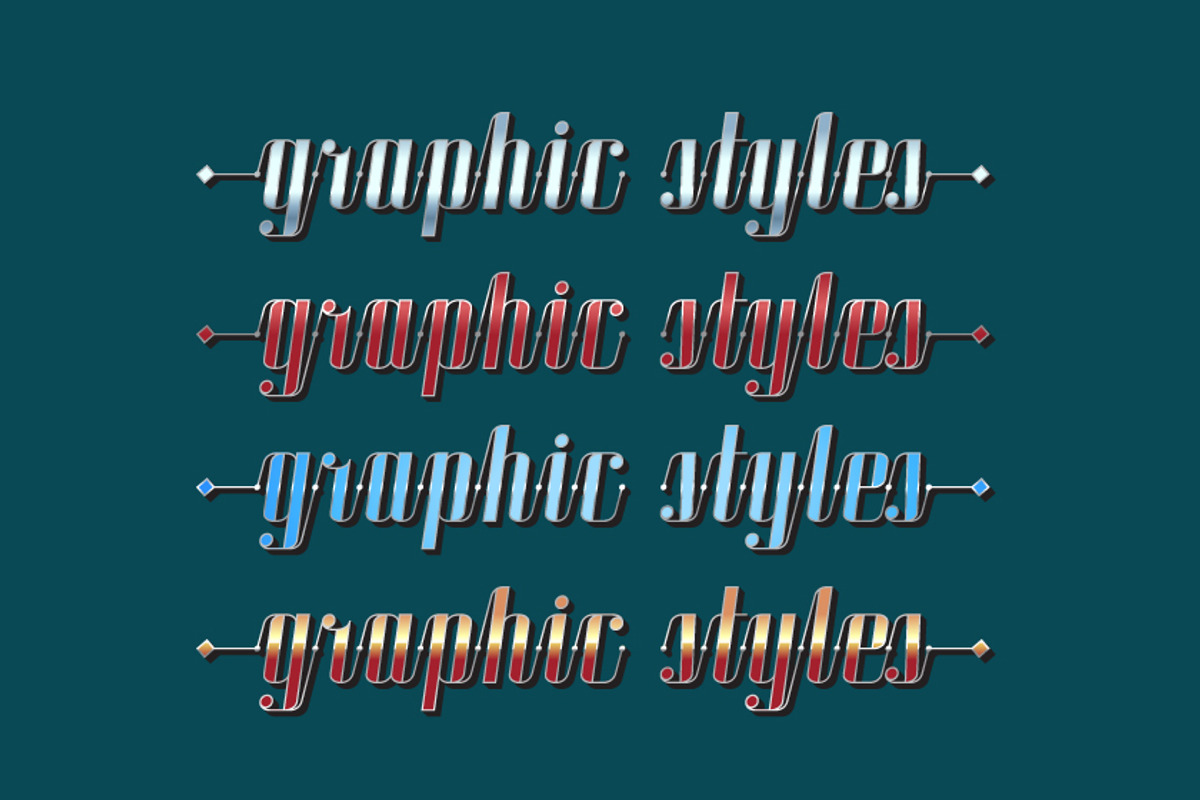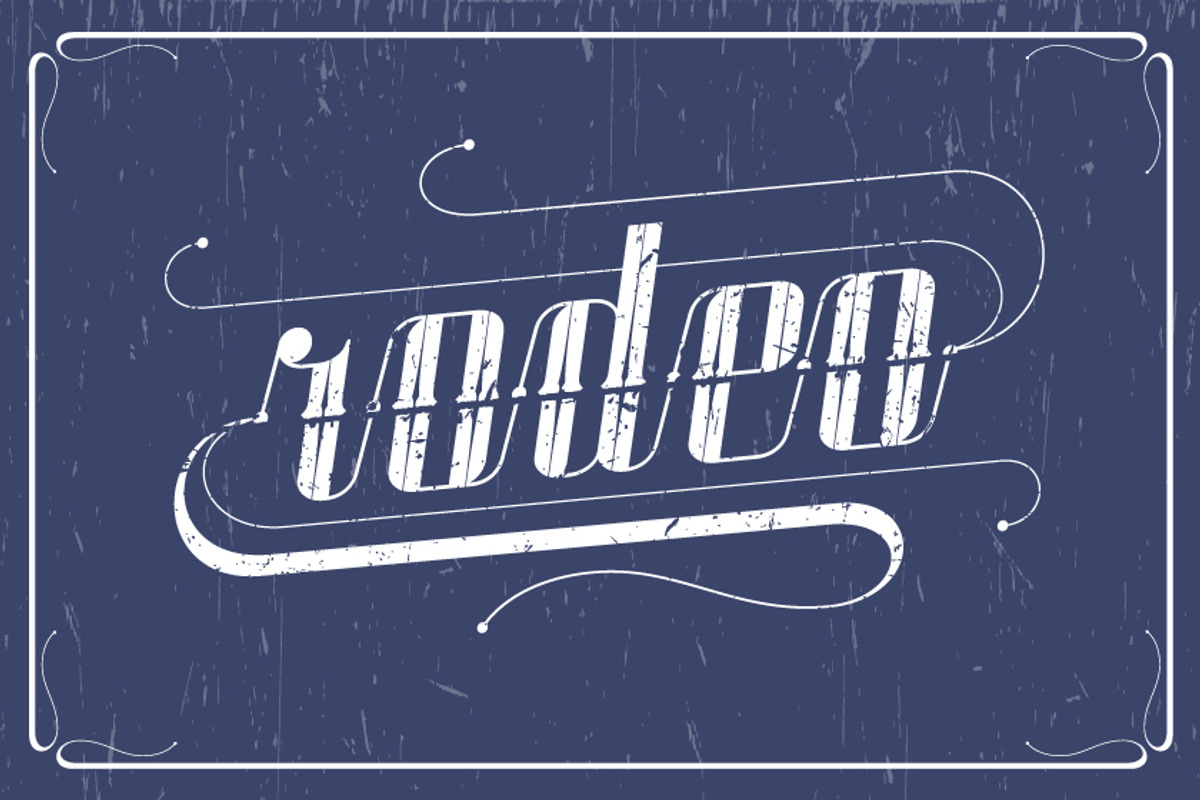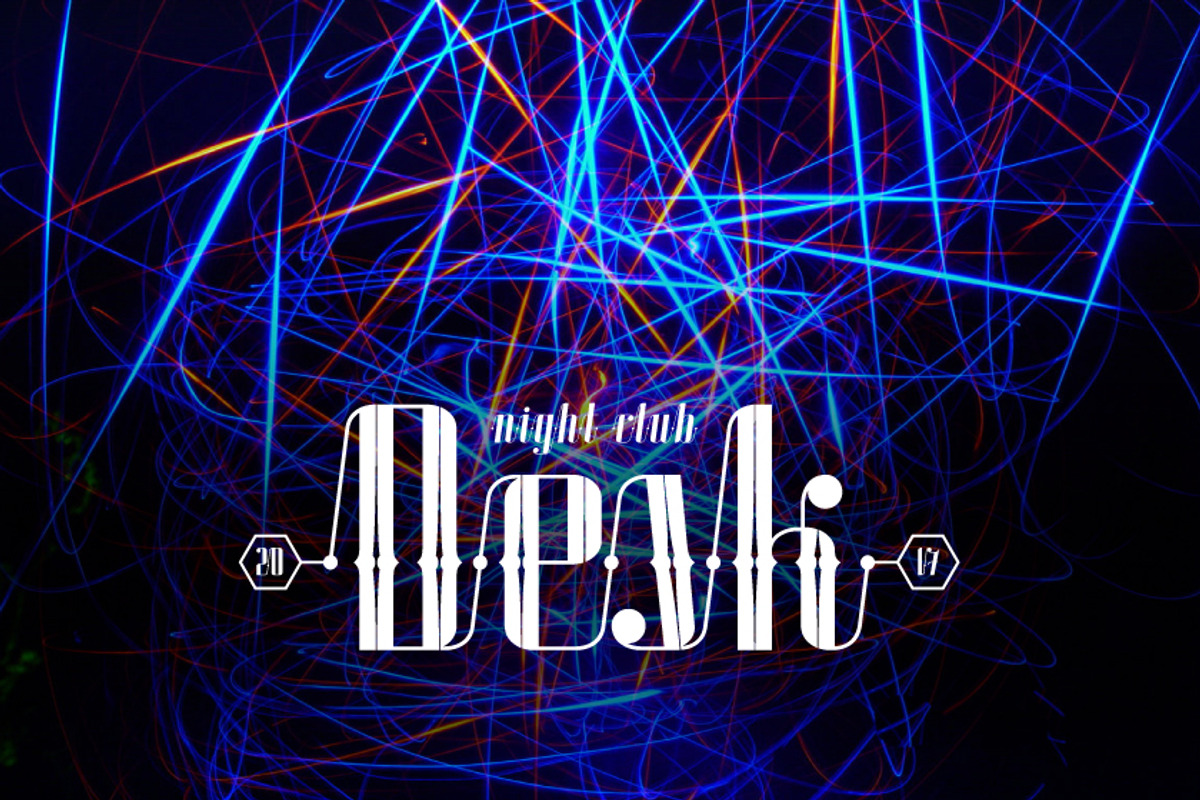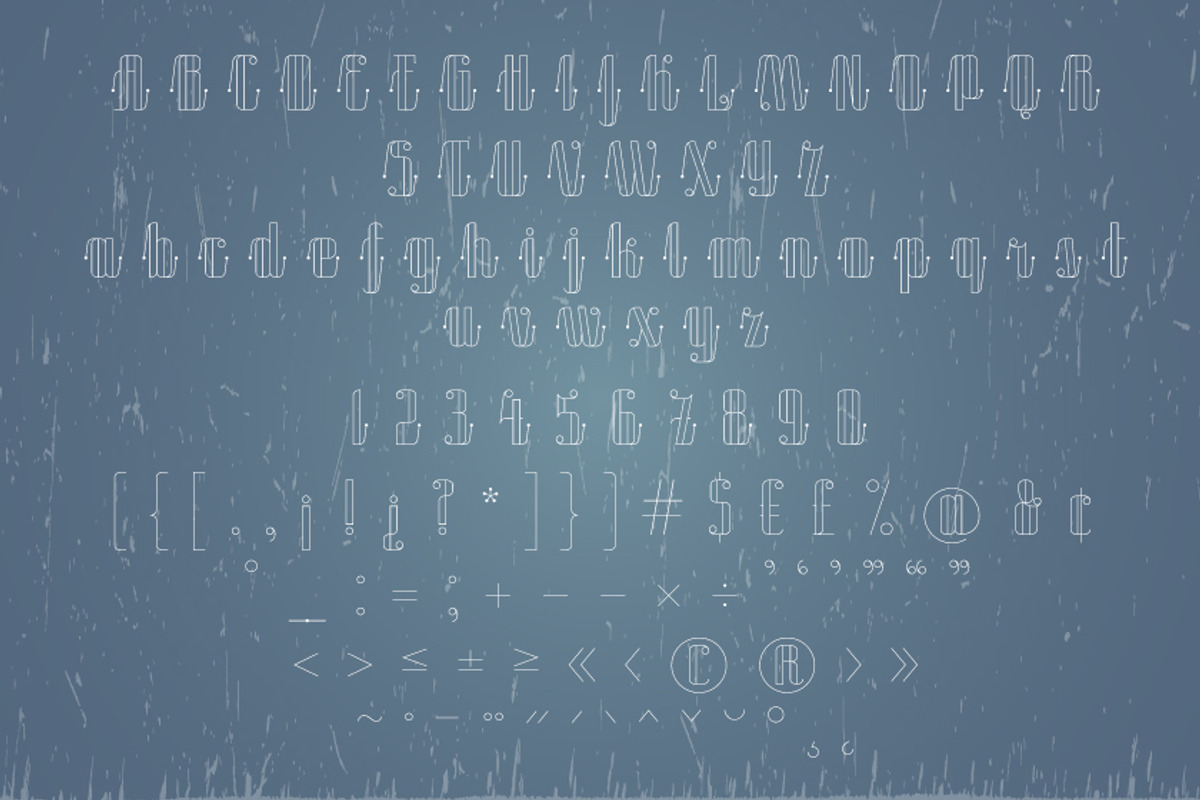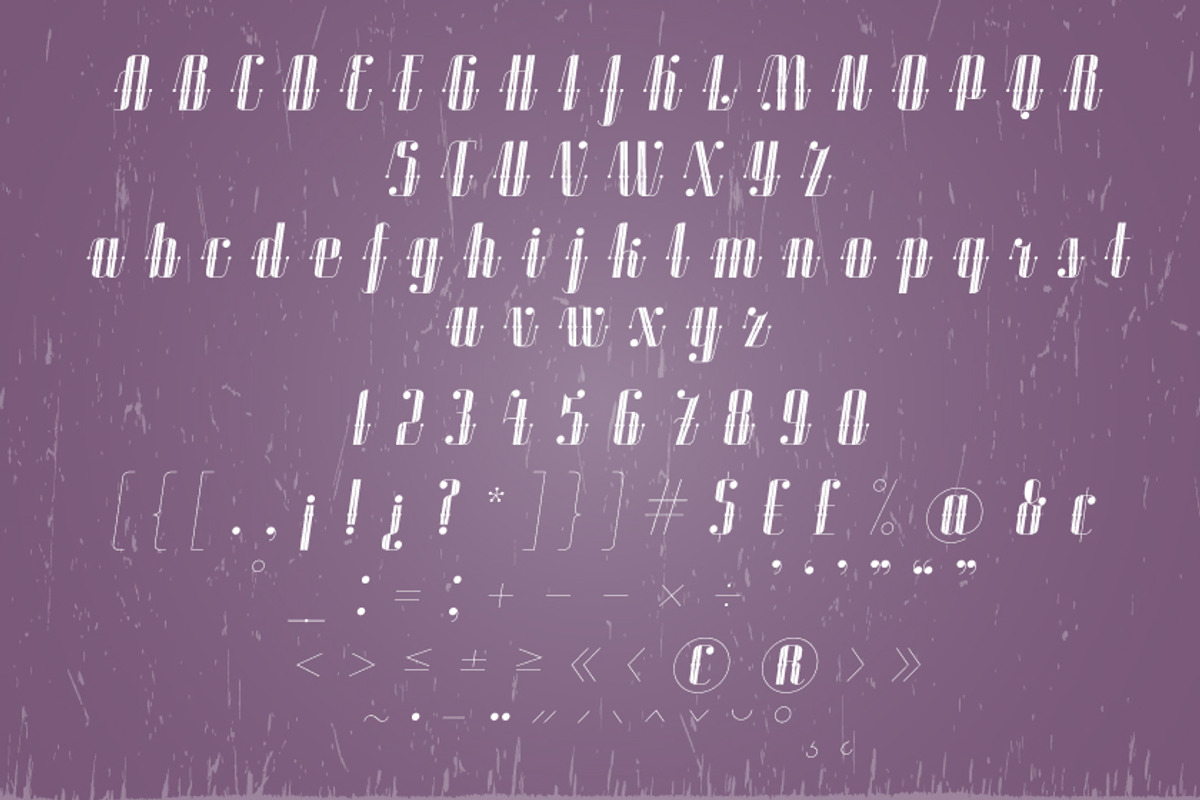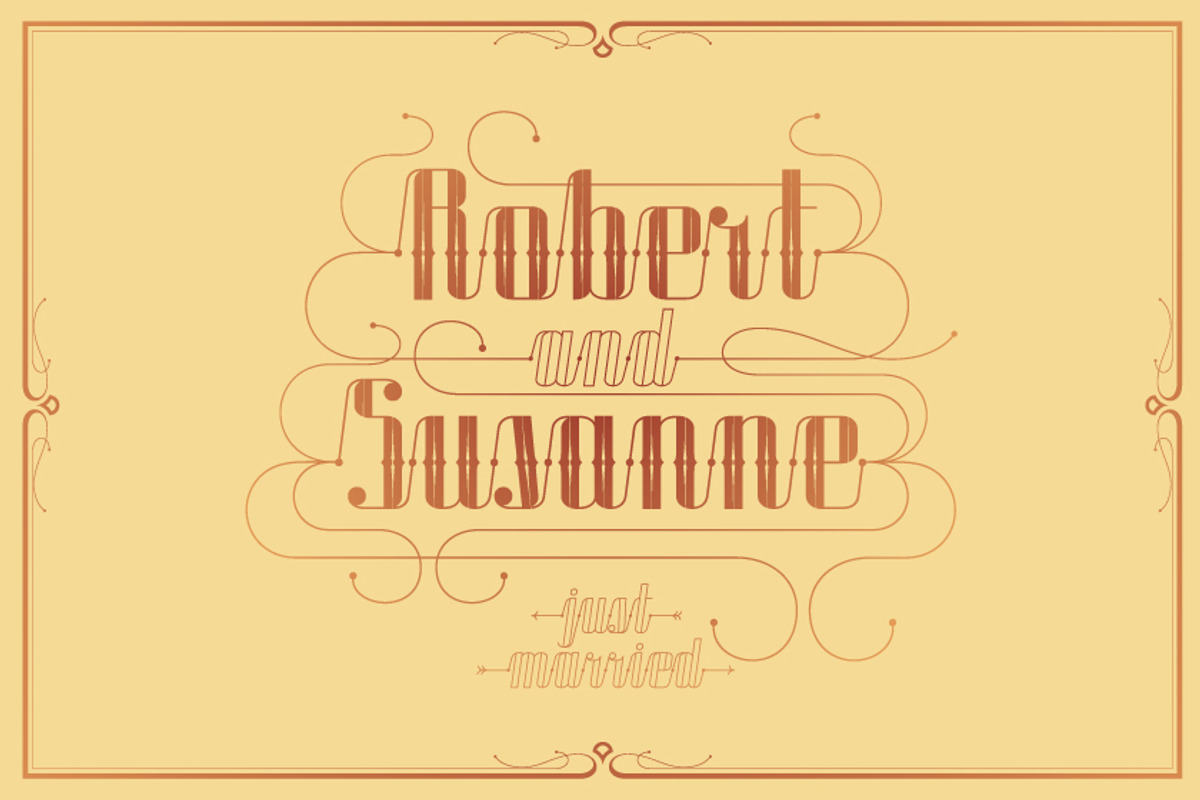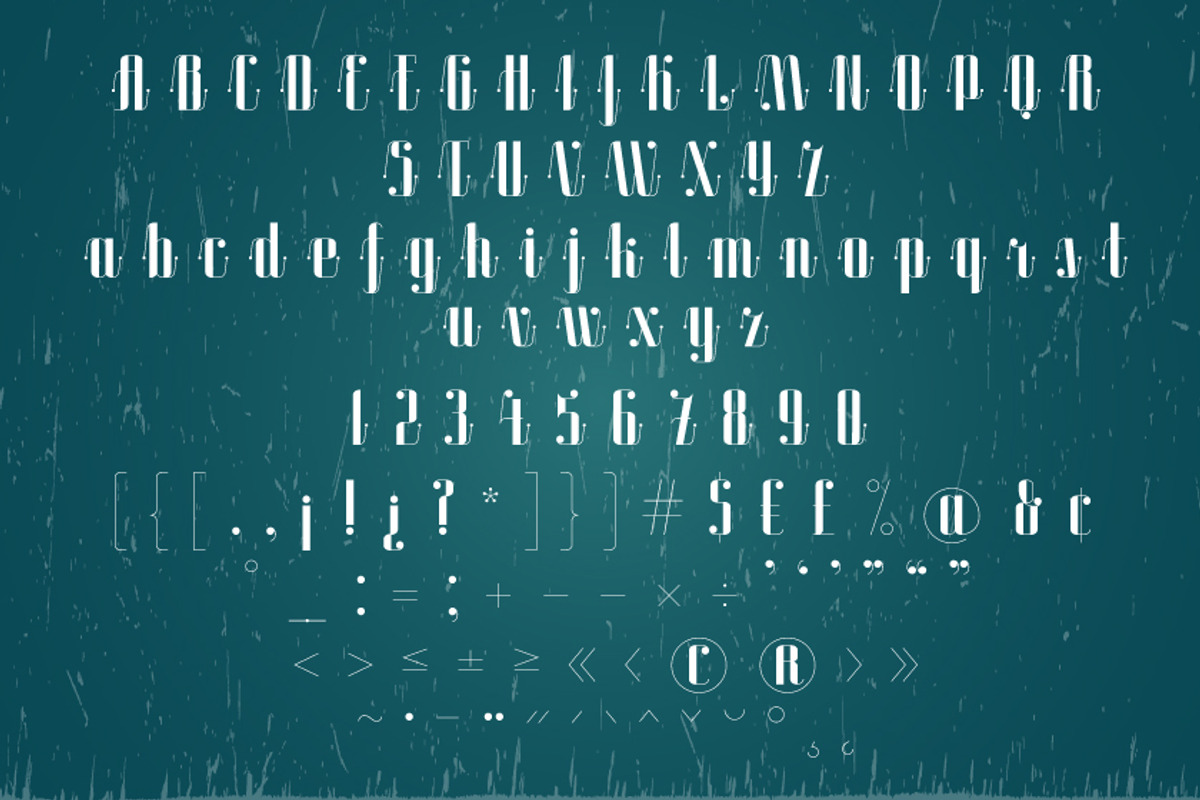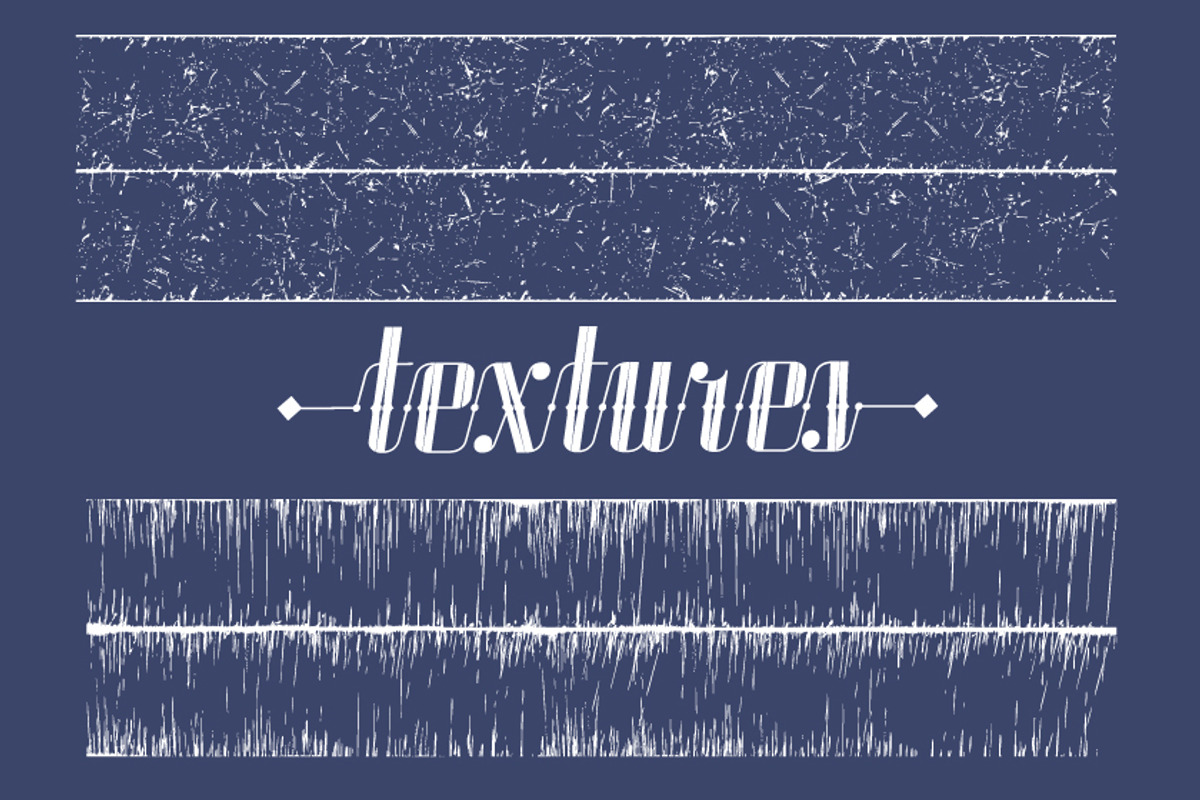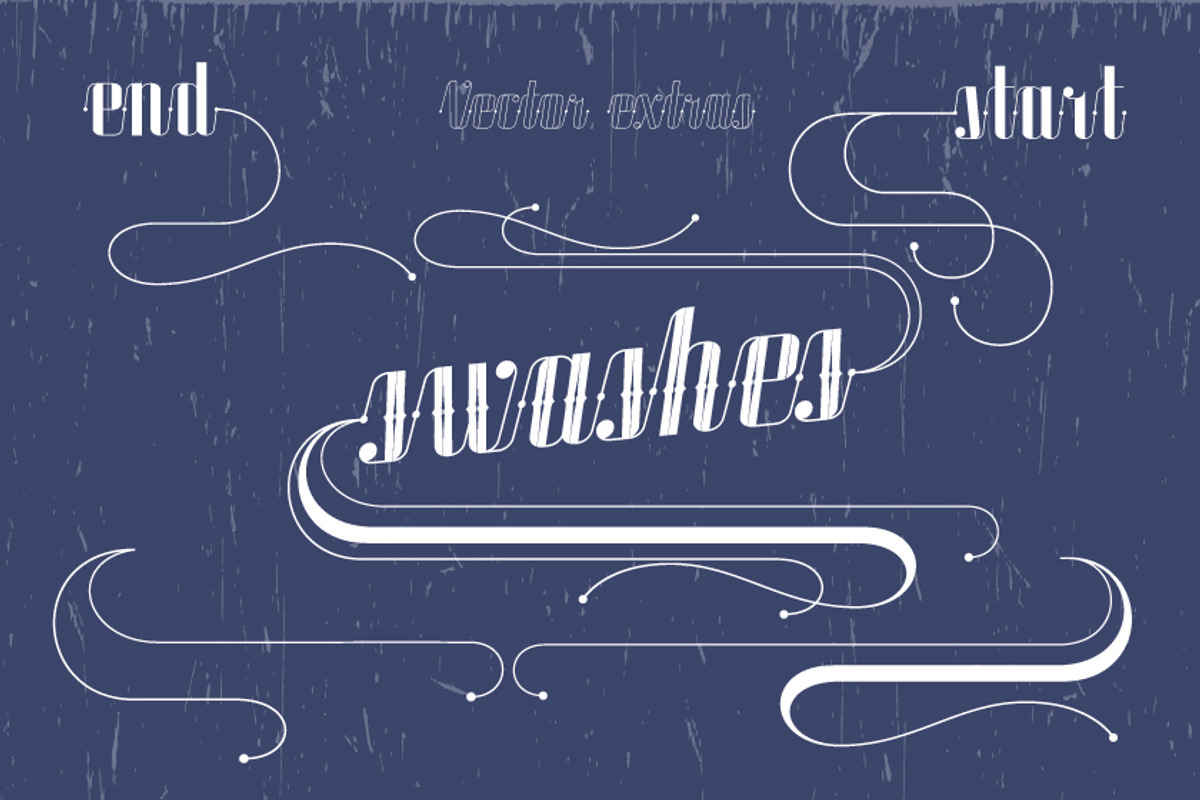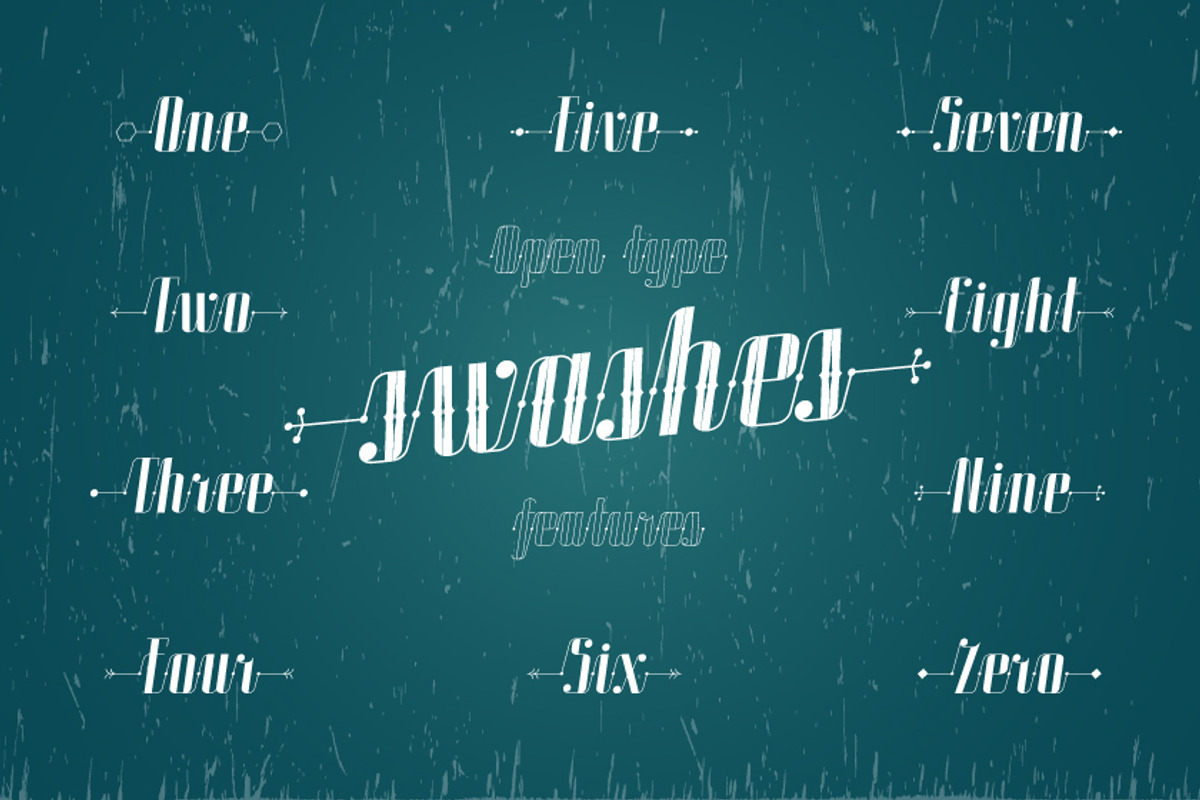
Roadster font family + Extras
Welcome my new vintage style ROADSTER font family. With so many extras the font gives additional opportunities for logo creation, branding designs, blogs. Also looks cool when used in headers in signs, layouts, ad materials.
Extras are an AI file (EPS 10) with vector elements including boarders and swashes as well as four graphic styles and two vintage rough textures. OpenType features include swashes and dividers.
Font is Latin multilingual and have uppercase letters, lowercase letters, numbers and basic punctuations.